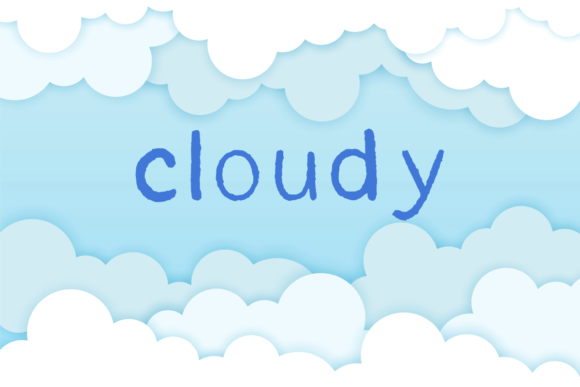
Discover the Magic of Cloudy Font
Have you ever found yourself brainstorming late at night, trying to come up with the perfect font to match your creative vision? You scroll through font libraries, scrolling through page after page, until suddenly, one catches your eye. For many designers, that ‘aha’ moment is what happens when they stumble upon Cloudy Font.
Cloudy Font is more than just a cute, handwritten font – it’s a tool that can elevate your creative ideas and make them stand out. Its friendly feel makes it incredibly versatile, fitting a wide range of contexts, from playful advertisements to heartfelt blog posts.
With its endless variations, Cloudy Font is a valuable addition to any designer’s toolkit, allowing them to add a personal touch to their work and make it truly unique. Whether you’re working on a new project or simply looking to add some flair to your existing designs, Cloudy Font is sure to inspire your creativity.
Cloudy Font Key Features
- Unique Characteristics: Cloudy Font features a distinctive, weather-inspired design with subtle cloud and sky elements, adding a touch of whimsy to any text-based application.
- Font Weight: Cloudy Font comes in multiple weights, including Light, Regular, Medium, Bold, and Black, allowing users to choose the perfect weight for their design needs.
Designer Review: Cloudy Font
Overall, I think Cloudy Font has some great qualities that make it a solid choice for designers. ✨ Here are a few things that work well:
- Soft and subtle aesthetic that’s perfect for designs where you want to create a calming atmosphere
- Excellent legibility, even at small font sizes
- Versatile and can be used for a wide range of design projects, from branding to typography-based art
However, there are also some limitations to consider. ⚠️ These include:
- Lack of bold or italic styles, which may limit its use in certain design contexts
- May not be suitable for designs where you want to create a lot of contrast or visual interest
- Some users may find the font too light or wispy, depending on the design context
Overall, I think Cloudy Font is a great choice for designers who want a simple, elegant font that’s easy to read. While it may not be the best choice for every project, it’s definitely worth considering for designs where you want to create a calm and soothing atmosphere.
Cloudy Font is ideal for:
- Adding a touch of elegance to wedding invitations or stationery.
- Creating a whimsical atmosphere in children’s books or educational materials.
- Adding a sense of sophistication to business reports or presentations.
For best results, use Cloudy Font in combination with muted colors and subtle textures to create a cohesive design.
Alternatives to Cloudy Font for Designers
Great Vibes is a beautiful, elegant script font that is perfect for adding a touch of sophistication to your designs. It is ideal for use in titles, headings, and other elements where you want to convey a sense of luxury and refinement.
Great Vibes is similar to Cloudy Font in its flowing, handwritten feel, but it has a more refined and polished appearance. It is also more versatile, with a wider range of uses in both digital and print design.
Pacifico is a popular, modern script font that is perfect for adding a touch of warmth and personality to your designs. It is ideal for use in titles, headings, and other elements where you want to convey a sense of relaxation and casual elegance.